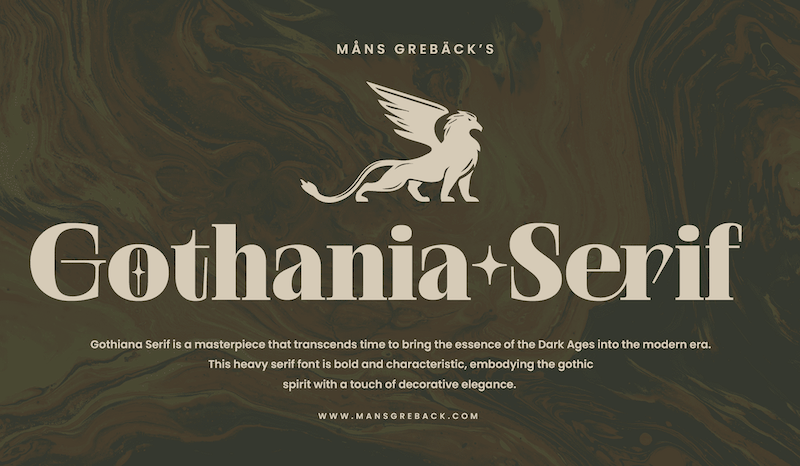
Preview and download Gothania Serif Font. Created by Måns Grebäck in Fancy Retro styles with Free for personal use license.
NOTE: This font is for PERSONAL USE ONLY! To purchase a commercial license, visit: http://mn.sg/gothania-serif Gothiana Serif is a heavy and characteristic serif font, embodying the gothic spirit with a touch of decorative elegance. Its design resonates with the fine craft of historical art, yet it's perfectly suited for contemporary projects seeking a touch of the mystical and the timeless. For questions, please visit www.mansgreback.com/faq |